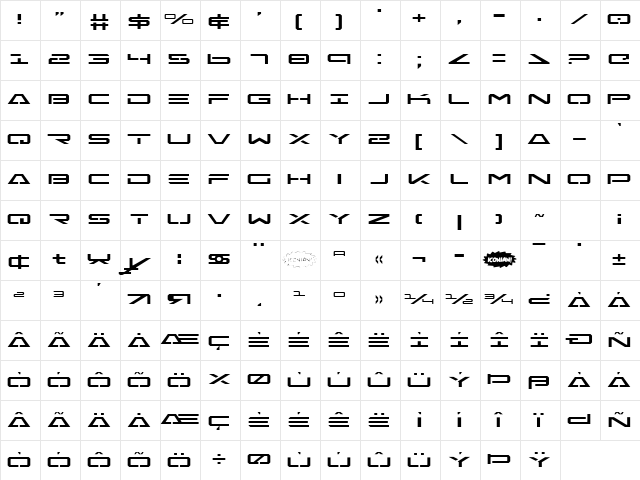
Complete Free Agent Expanded glyph index. Displaying only characters natively supported by Free Agent Expanded font.
Free Agent is a composed and adaptable typeface that performs quietly and consistently across a wide range of design contexts.